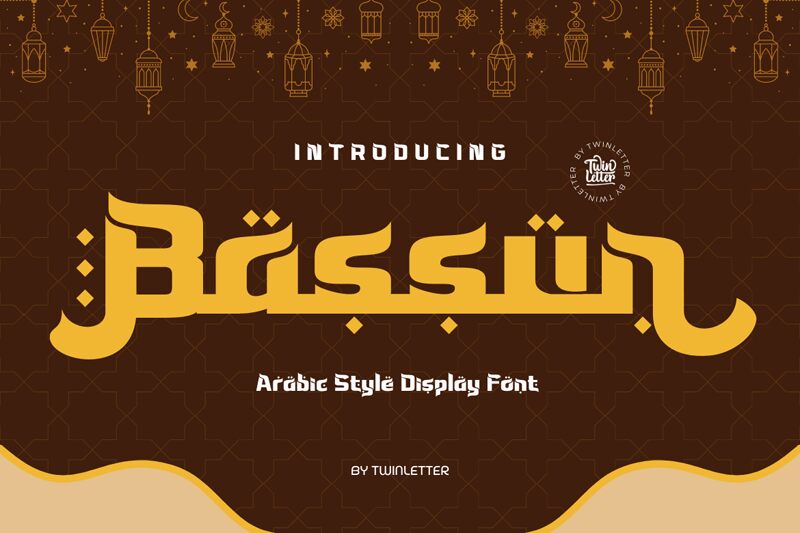
Bassun, designed by twinletter, is an exquisite foreign font that adds a touch of mystique to any project. With its faux Arabic style and bold weight, Bassun stands out as a unique choice for creative endeavors across various mediums. Its semi-expanded width allows for easy readability while maintaining a distinct presence.
This captivating font is perfect for eye-catching logos, striking headlines, or even adventurous book covers. Let Bassun transport your designs to far-off lands and captivate audiences with its mesmerizing charm.